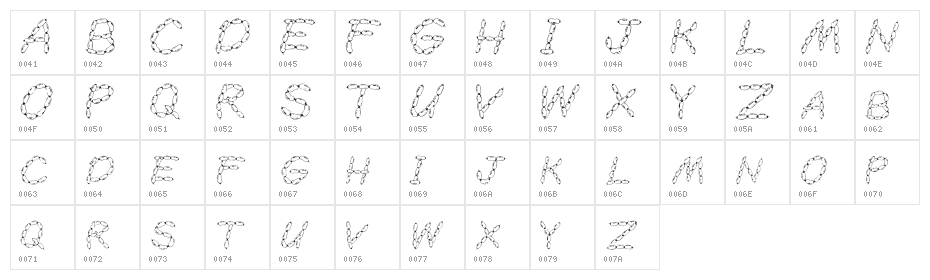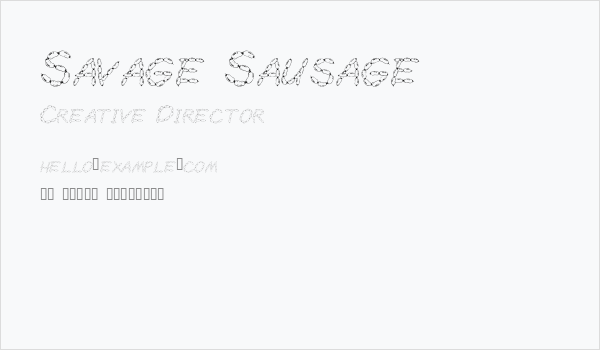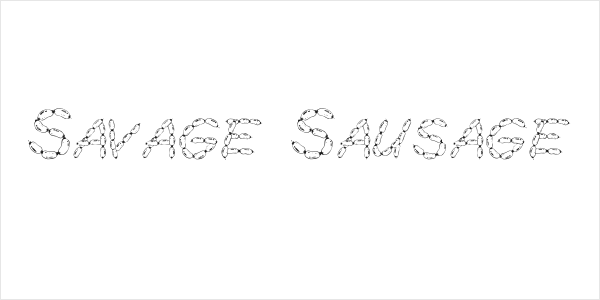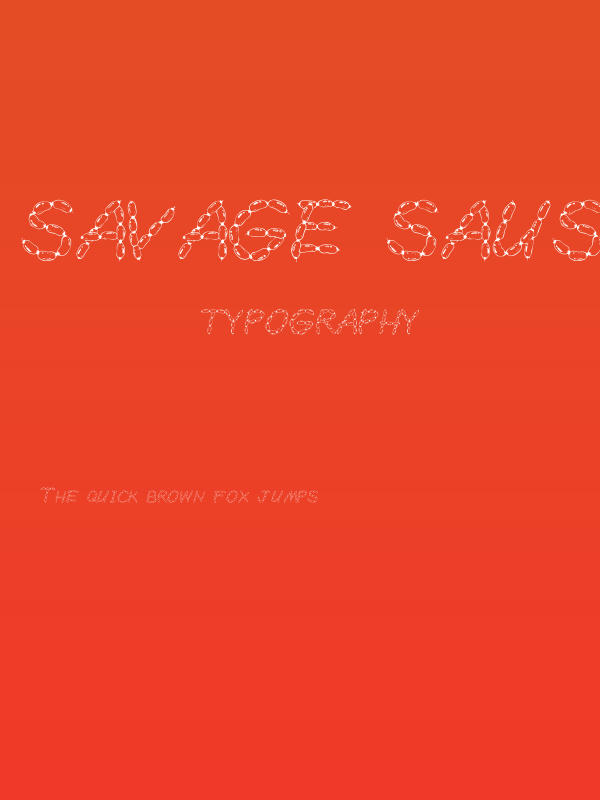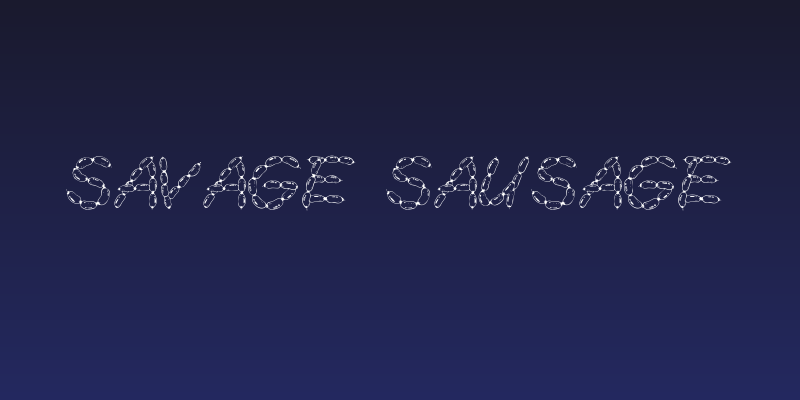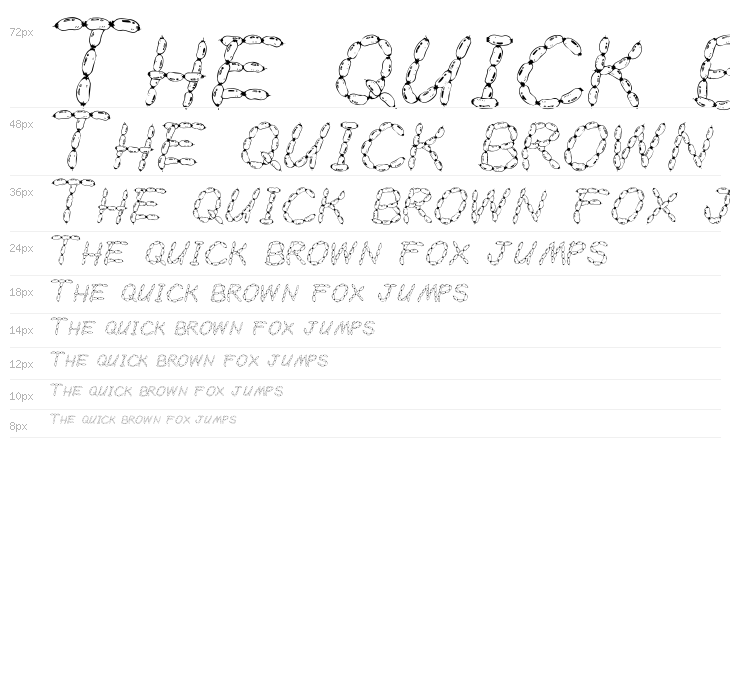
Savage Sausage Font
Savage Sausage Description
This playful and whimsical font features characters designed to resemble linked sausages, creating a unique and humorous visual effect. The letters are formed by a series of connected, rounded shapes that mimic the appearance of sausages, complete with subtle details that enhance the playful theme. The font maintains a consistent line thickness throughout, contributing to its cohesive and decorative style. While it may not be suitable for formal documents, its distinctive design makes it ideal for projects that require a fun and lighthearted touch.
| Use Case | Logos, Posters, Novelty items |
| Proposed Projects | Ideal for children's books, food-related branding, playful posters, and novelty items. |